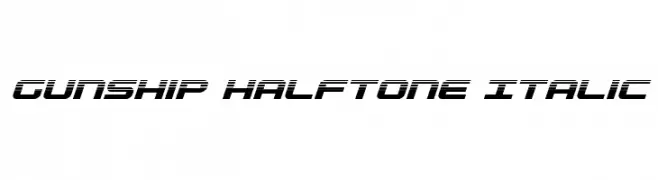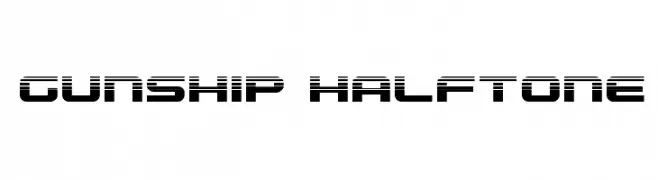
A bold, dynamic font with a halftone effect and slanted characters, exuding speed and energy.
A bold, futuristic italic font with a halftone effect, ideal for dynamic and modern designs.
A bold, futuristic font with a halftone effect and geometric structure.
A bold, italicized font with a halftone effect and high contrast, perfect for modern designs.
A bold, geometric font with a halftone effect, ideal for modern designs.
A bold, futuristic font with a dynamic halftone effect and sharp, slanted characters.
A bold, futuristic font with a halftone effect and geometric design.
A bold, italicized font with a halftone effect, exuding a futuristic and dynamic style.
A bold, geometric font with a halftone effect, perfect for modern designs.
A bold, italicized font with a halftone pattern, exuding speed and energy.
A bold, futuristic font with a halftone effect and dynamic, block-like forms.
A bold, dynamic font with a halftone pattern and sharp, slanted characters.
A bold, modern font with a halftone effect and dynamic, futuristic style.
A bold, modern font with a unique halftone effect for dynamic visual impact.
A bold, italicized font with a modern halftone effect.
A futuristic font with a halftone pattern and geometric design.
A futuristic italic font with a halftone effect, conveying speed and modernity.
A bold, geometric font with a dynamic halftone effect.
A bold, italicized font with a halftone effect and tight character spacing, ideal for modern and dynamic designs.
A bold, italicized font with a halftone effect, offering a dynamic and futuristic look.
A bold, geometric font with a halftone effect and blocky structure.
A bold, geometric font with a halftone pattern, perfect for modern and edgy designs.
A bold, italicized font with a halftone effect, perfect for modern and dynamic designs.
A bold, dynamic font with a halftone effect and retro-futuristic style.
A bold, italicized font with a halftone effect, perfect for modern and dynamic designs.
A bold, italicized font with a halftone effect and dynamic style.
A bold, modern font with a halftone effect and dynamic horizontal lines.
A bold, dynamic font with a halftone effect and geometric structure.
A futuristic, geometric font with a halftone pattern and bold, mechanical design.
A futuristic, italicized font with a halftone effect and segmented lines.
A bold, two-tone font with a modern, dimensional style.
A bold, italicized font with a halftone effect, perfect for dynamic and modern designs.
A bold, italicized font with a two-tone gradient effect, exuding energy and modernity.
A bold, italicized font with a halftone effect, offering a dynamic and futuristic look.
A bold, geometric font with a halftone effect and modern aesthetic.